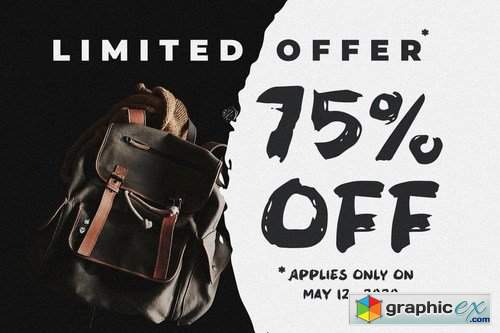
Ermua - Bold Brush Font
Introducing The Ermua - Bold Brush Font. It comes with brush texture style which is perfect to make any design stand out! This font is perfect for branding, wedding invites, magazines, mugs, business cards, quotes, posters, and more.